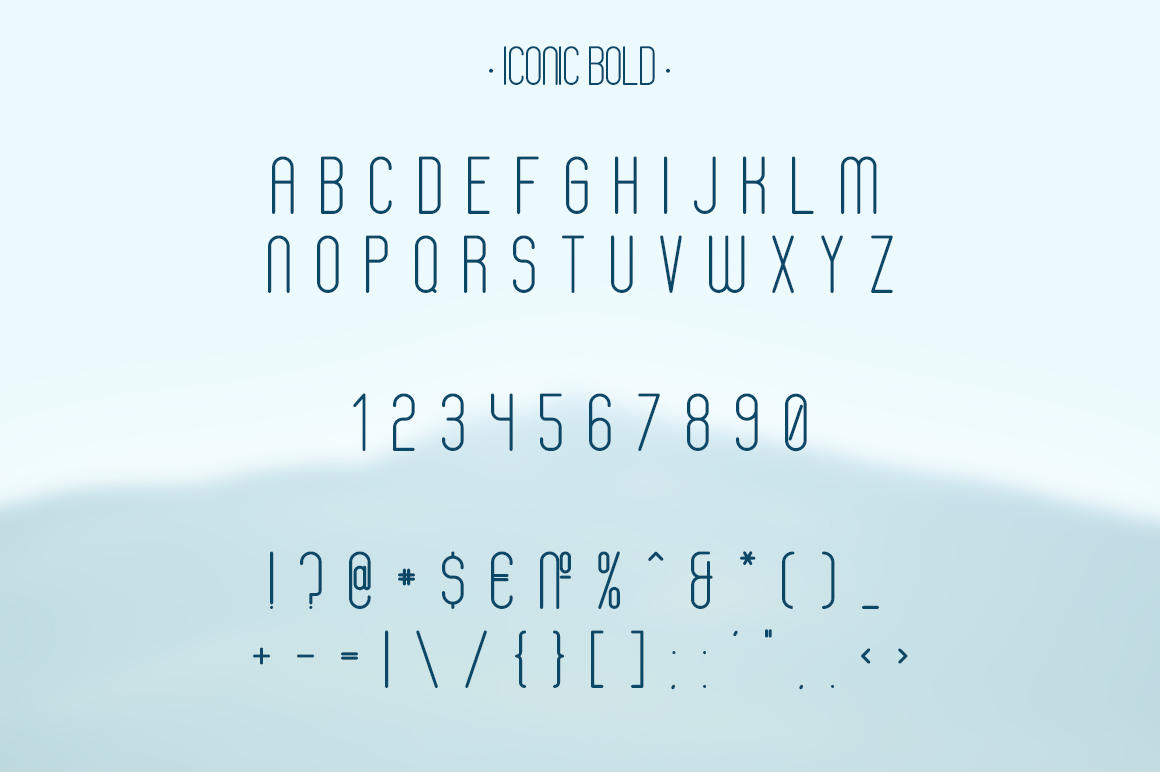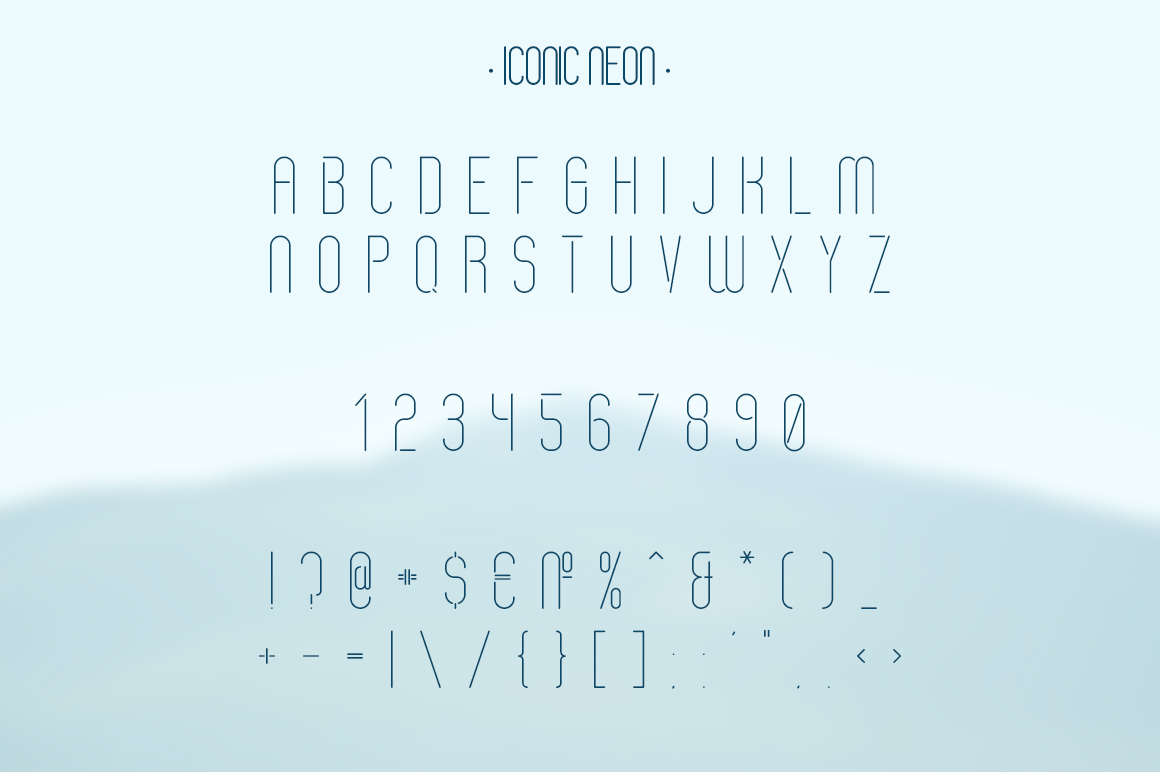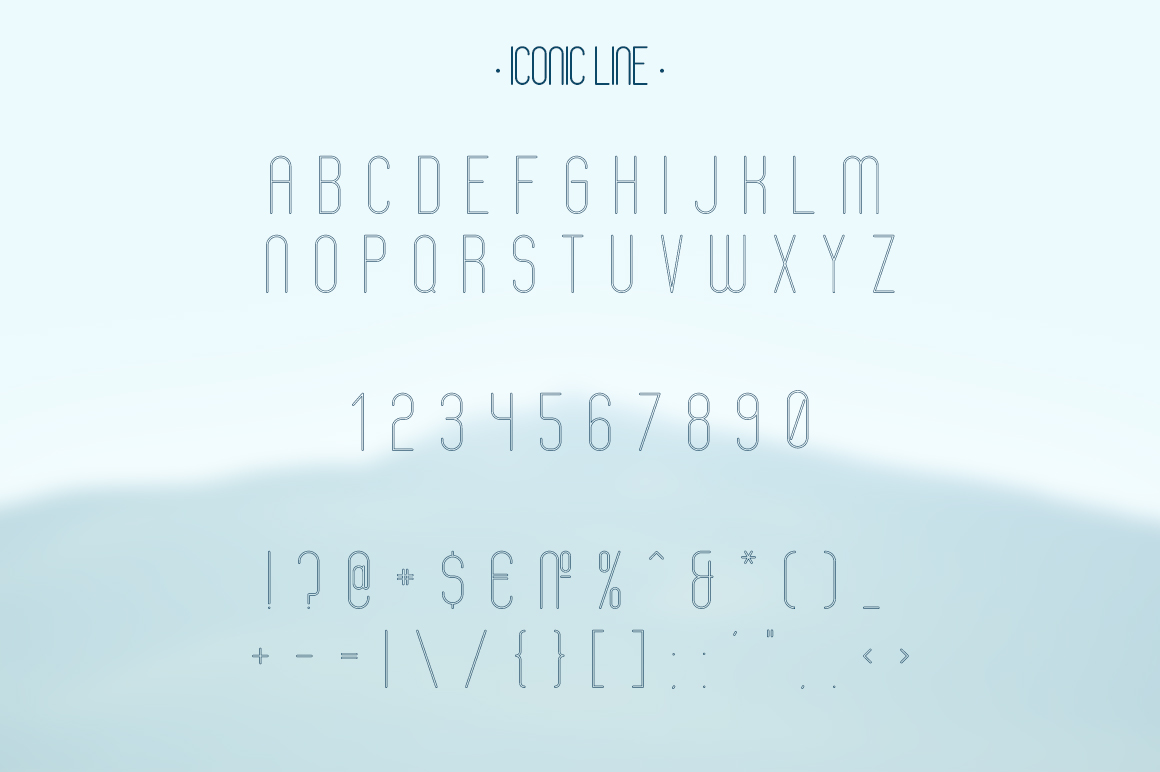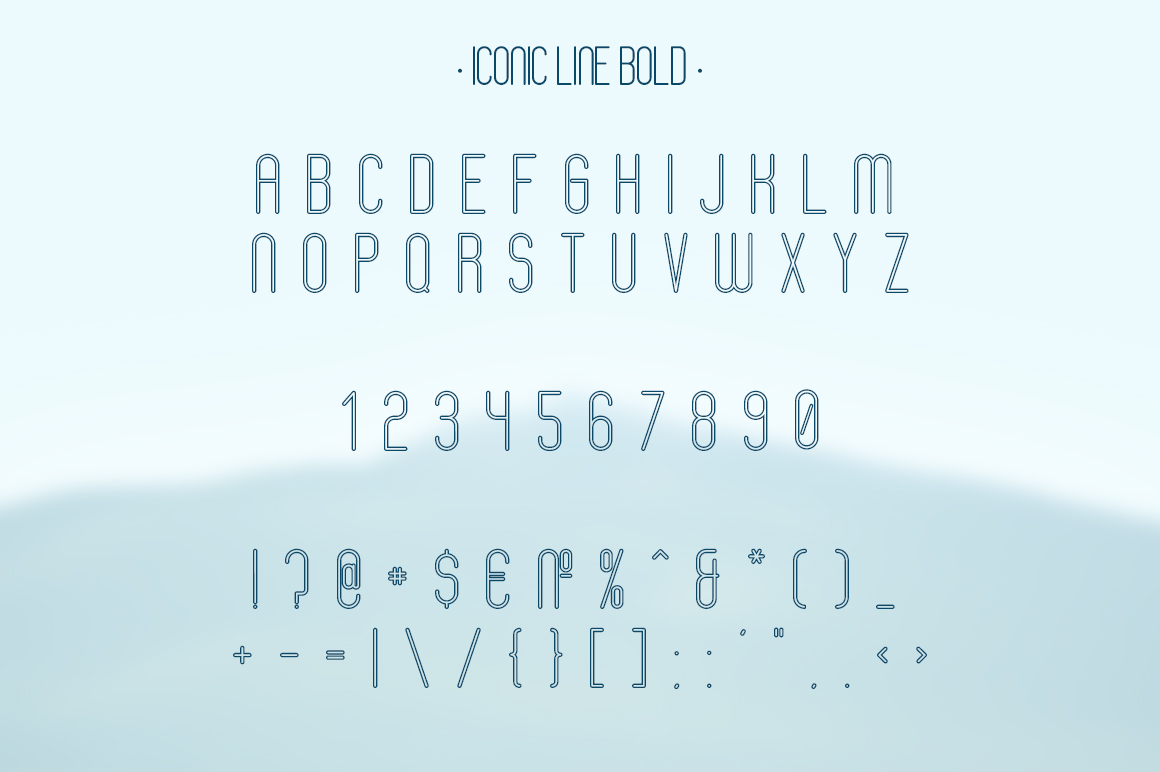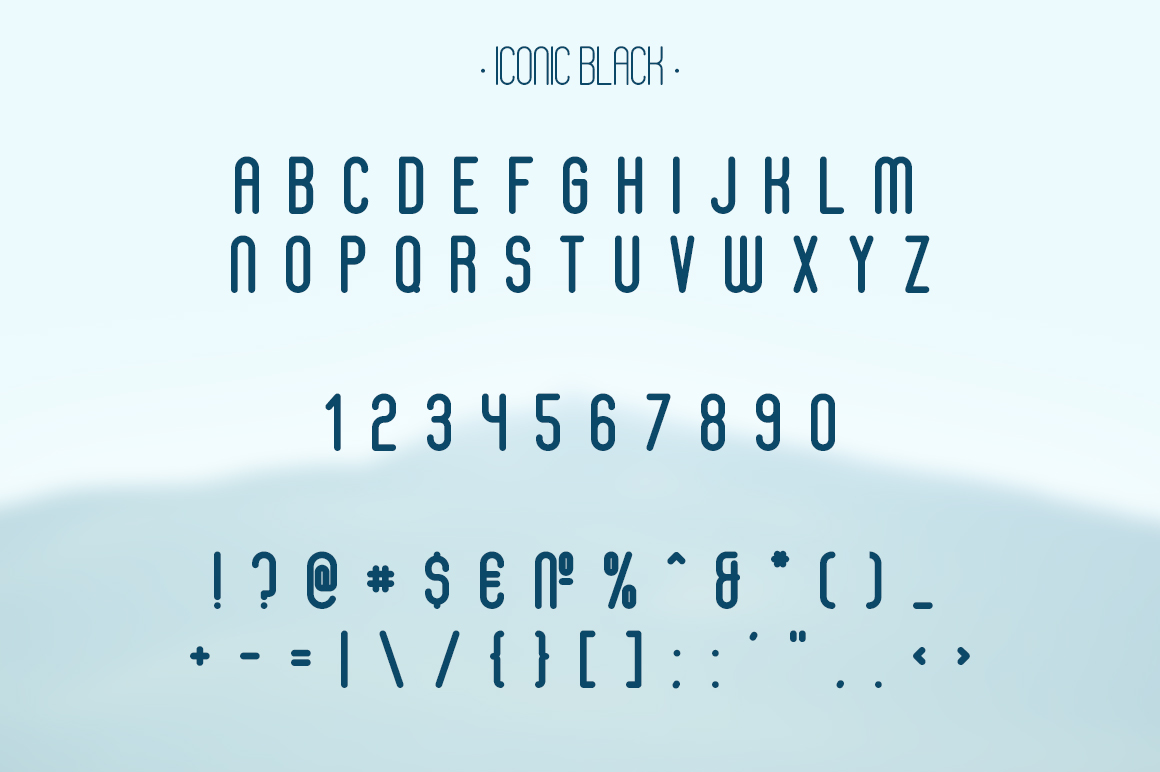
Iconic Font Family
Iconic is a modern and Minimal Sans Serif typeface, Iconic can keep the minimalism at its level best and is a Perfect choice for, Typewriter, headlines, paragraph, subheading, notes, Big Banners. Classic & Decorative Typography Designs.